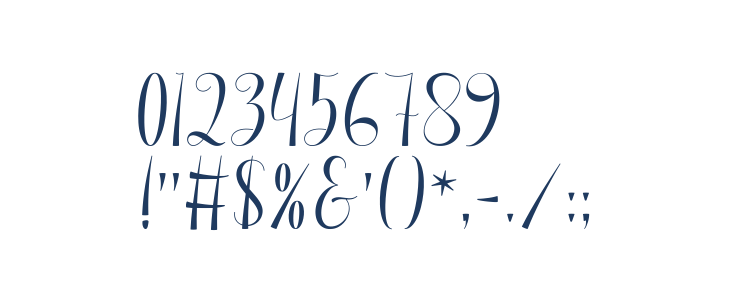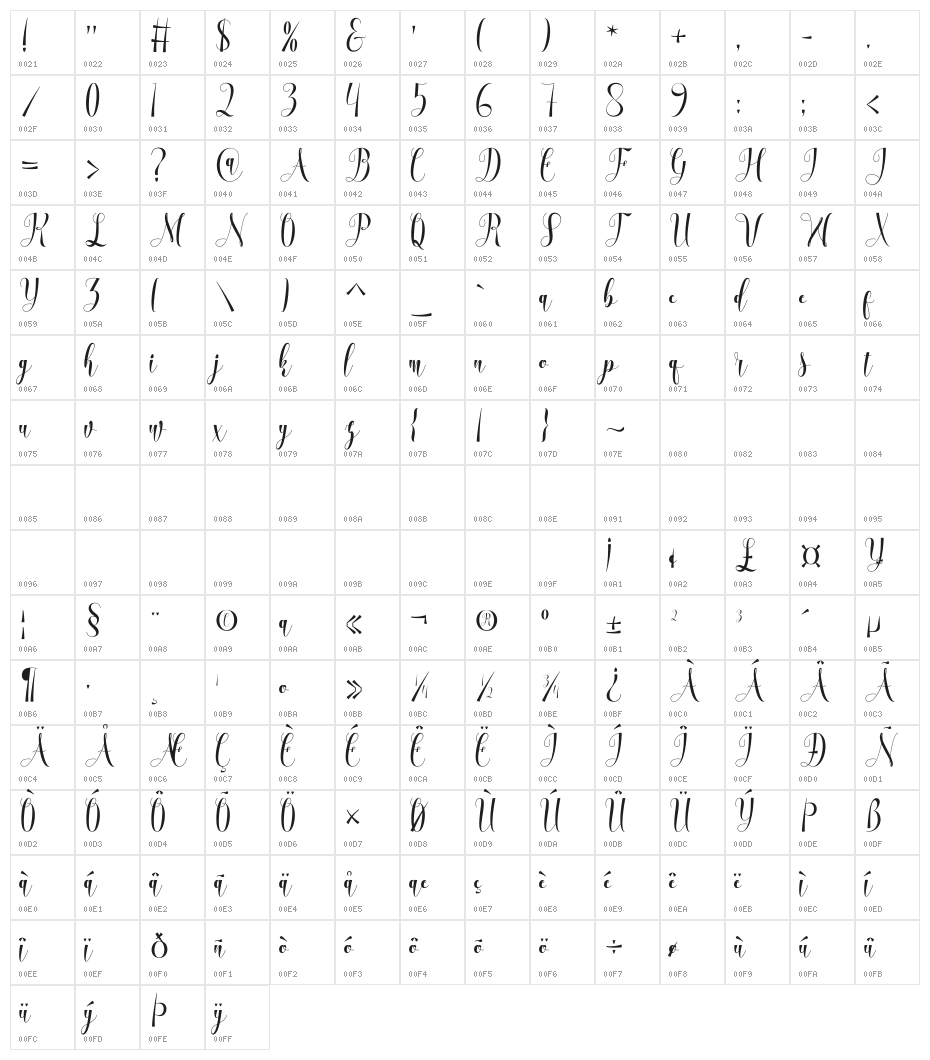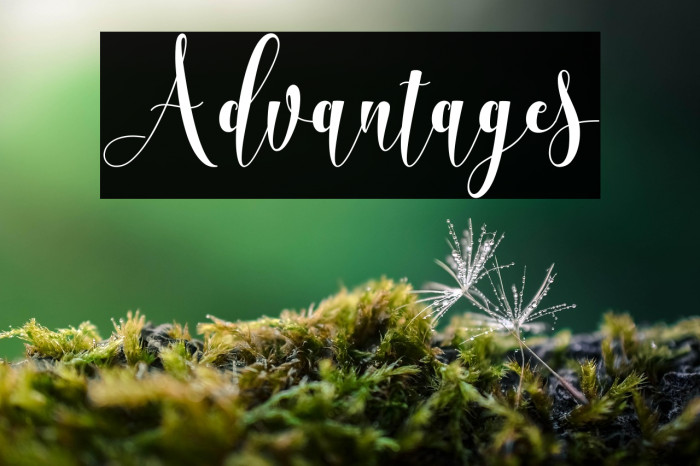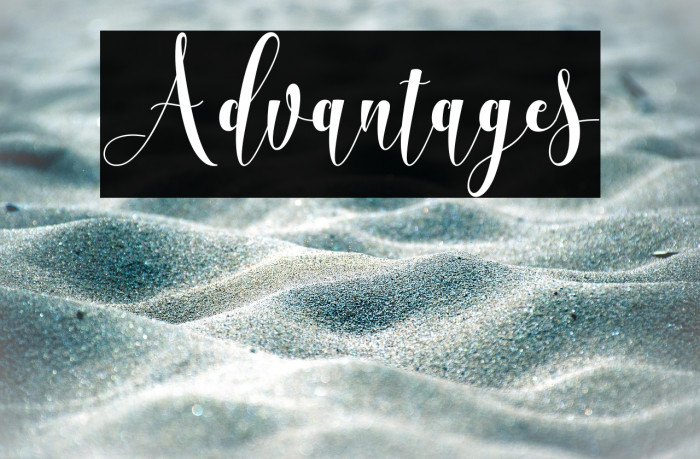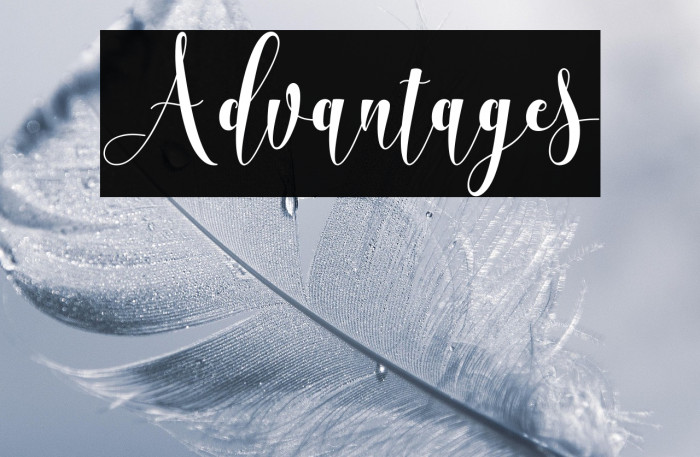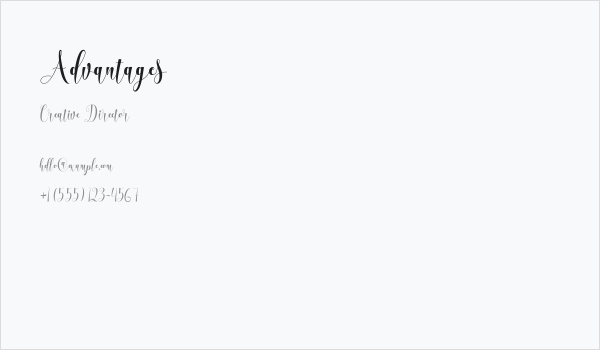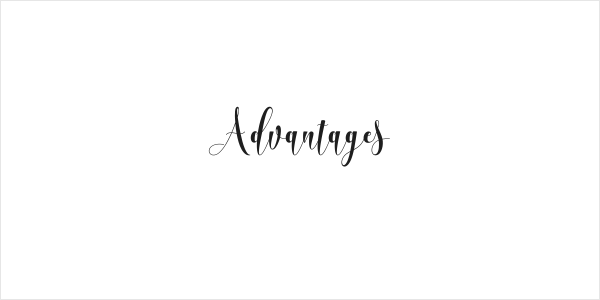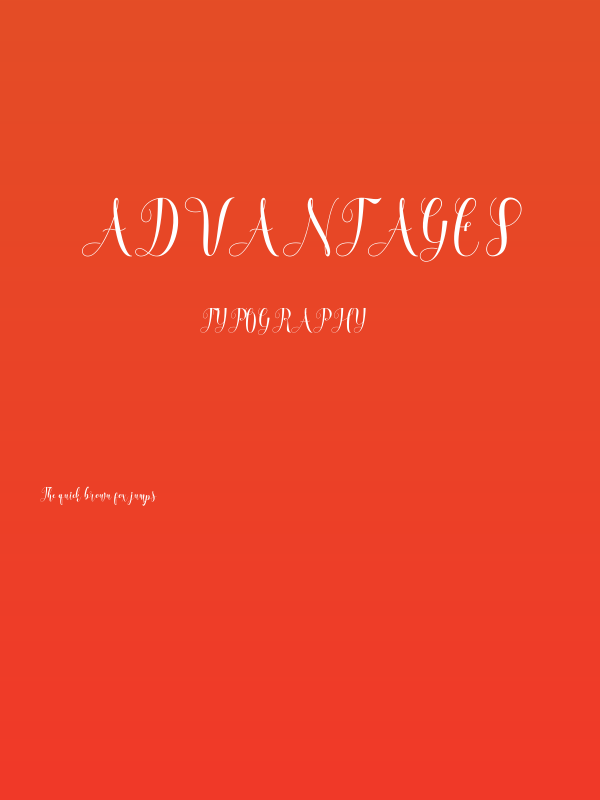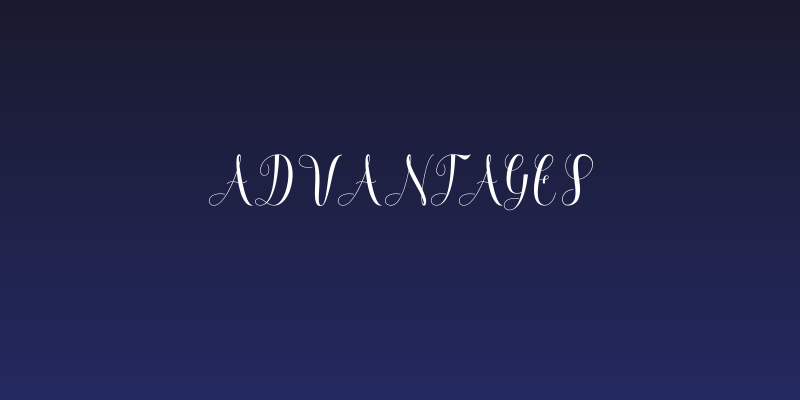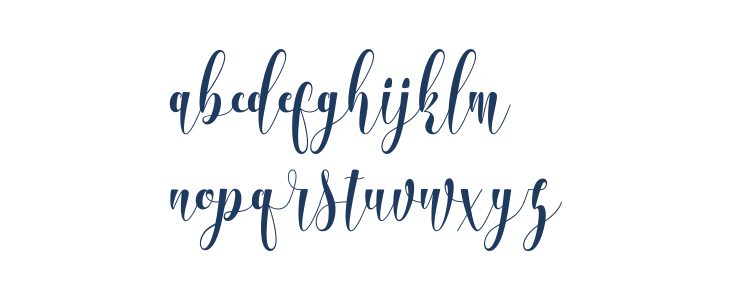
Advantages Font
Advantages Description
This elegant script font features a flowing, cursive style with intricate loops and swashes that give it a sophisticated and artistic appearance. The uppercase letters are characterized by their tall, slender forms and graceful curves, while the lowercase letters maintain a consistent fluidity, enhancing the overall aesthetic. The numerals and special characters are designed with the same attention to detail, ensuring a cohesive look across all glyphs. The font's high contrast between thick and thin strokes adds to its dramatic flair, making it ideal for projects that require a touch of elegance and refinement.
| Overall Style | Elegant, Artistic |
| Proposed Projects | Ideal for wedding invitations, luxury branding, elegant stationery, and artistic designs. |